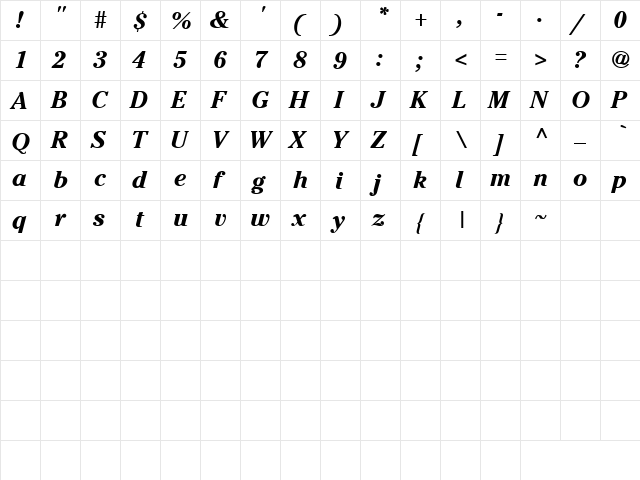
Take It 2 Regular
Design Context for Take It 2 Typeface
Take It 2 offers clean, dependable letterforms without strong stylistic allegiance, making it a practical choice for designers who need flexibility.